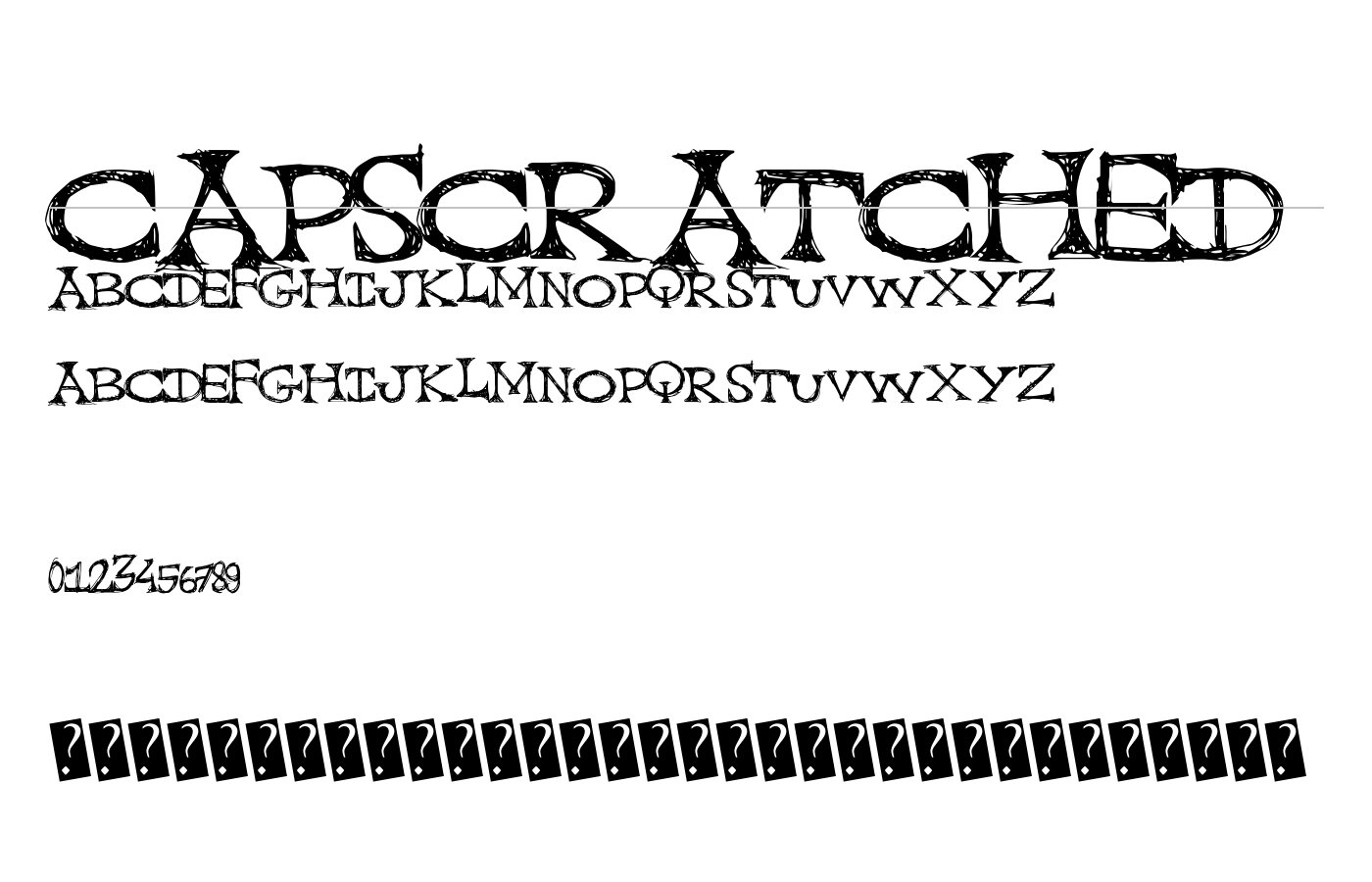
CapScratched is a decorative serif font with a distressed, hand-sketched appearance that gives it a rough, organic texture. Its narrow, tall letterforms combined with uneven strokes and subtle scratches create a vintage, eerie feel perfect for Halloween themes, horror projects, or grunge-inspired designs. This font works well for headlines, logos, and posters where a unique, handmade, and slightly chaotic aesthetic is desired to evoke mystery or spookiness.
CapScratched Font
About CapScratched Font
| Font family | CapScratched Font |
| Designer | Max Infeld |